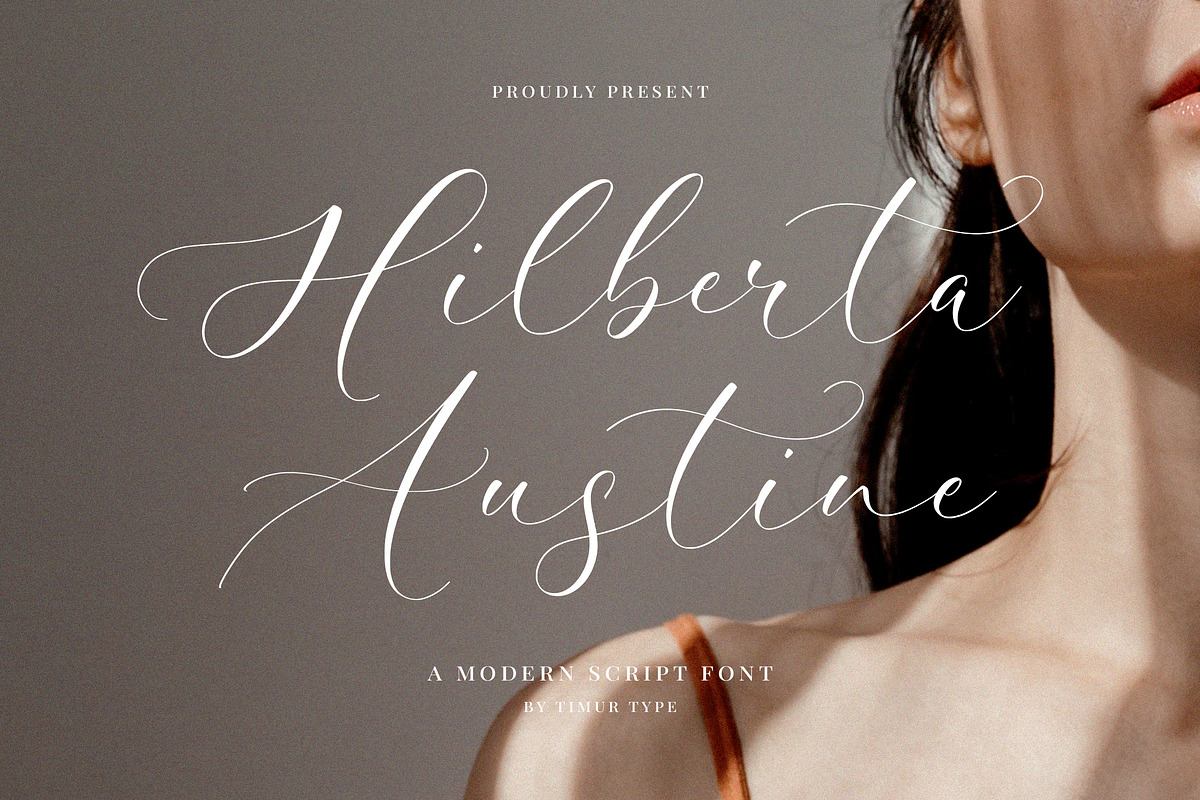
Hilberta Austine - Modern Script Free Download
Hilberta Austine - Modern Script Font Free Download
The Hilberta Austine - Modern Script Font Free Download is an elegant and stylish typeface that combines contemporary design with classic script elements. Its flowing curves and sophisticated letterforms make it the perfect choice for high-end branding, wedding invitations, logos, and more. This modern script font adds a touch of class and elegance to any creative project.
Hilberta Austine - Modern Script Font Free Download is ideal for designers looking to add a refined, stylish touch to their work. Whether you're working on invitations, luxury branding, or personal projects, this font will elevate your designs with its modern, elegant appeal. Download this stunning script font today and bring sophistication and beauty to your creative work!